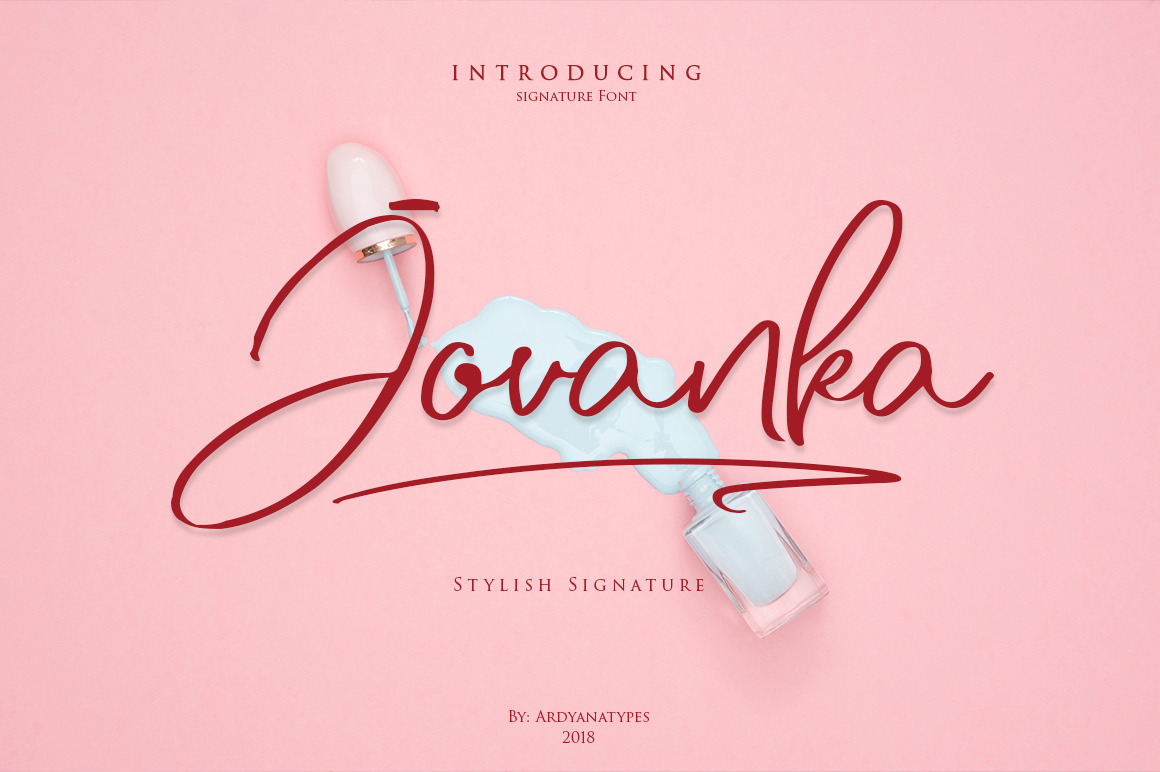
Jovanka Script Font
Jovanka is a modern font created to suit all design needs, carefully crafted to get the letter style in every word to be written, so it will be great for use in different projects: photography, watermark, quotes, blog header, poster, wedding, branding, logo, fashion, apparel, letter, invitation, stationery, etc
Jovanka has alternate glyph and also has foreign language support.